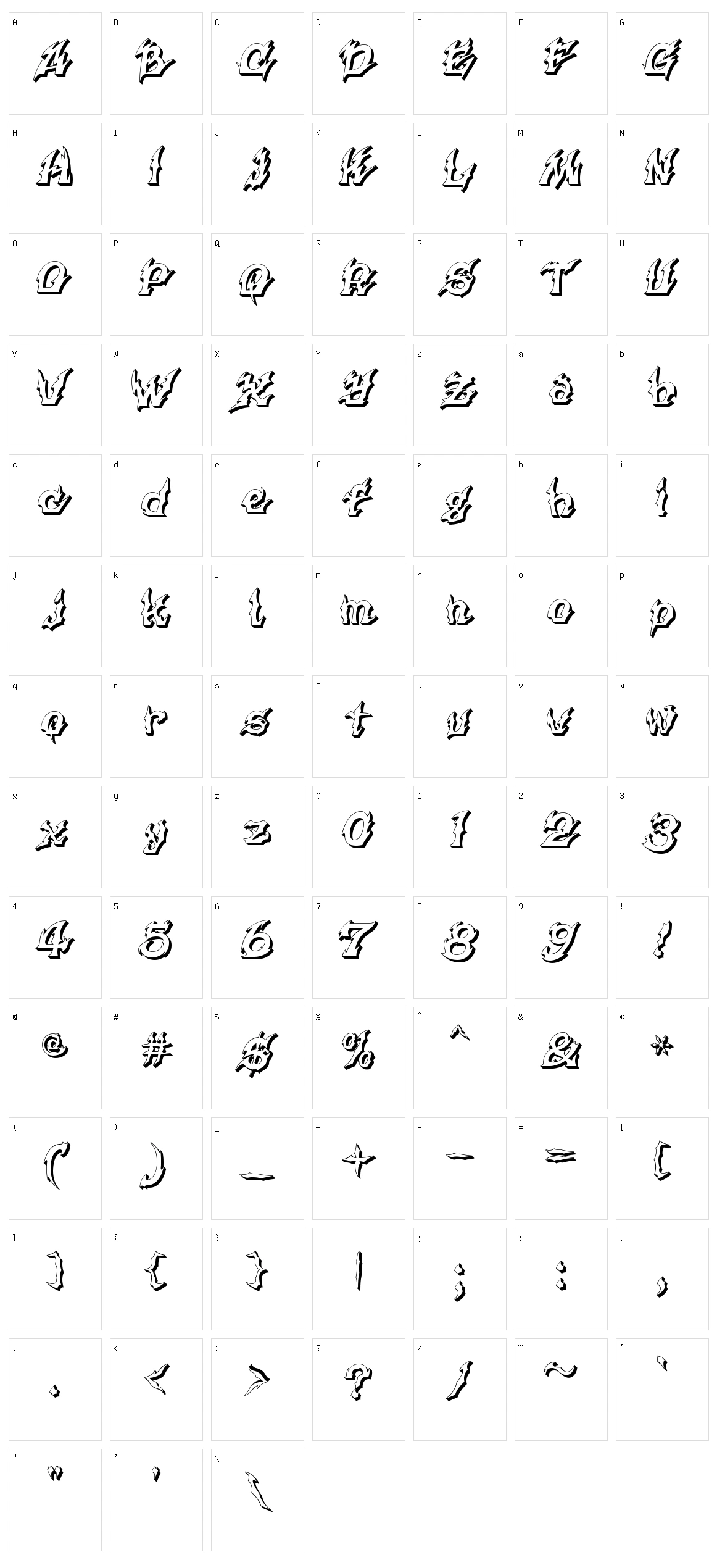
Xanax
Designed by: Apostrophic Labs
Category: Various & Gothic
... meanwhile, back at the lab, Apostrophe crawls under a desk and thinks to himself: "I am in ancient Rome and a lion is about to sink his teeth in my flesh. I smile at him to show him that I have teeth too, then I take out the mace can from my pocket and empty it in his left eye. He freaks and starts sounding like a cat in labour. I grab the lion's tail and drag him into a cage, lock the cage with the supergum that I was chewing all along. Then I return to the middle of the coliseum, the absolute middle, and stand on the circle where so much blood was shed before this day, The Day of the Apostrophe, the day which would be envied by every torreador for thousands of annums to come. I look up and and smile at the crowd, specifically at the scantily clad females behind Cesar. The sun gleams off one of my canines, which were earlier brushed extensively with salt and plasma, and a sharp-ended cross forms for a fraction of the a second where the sun just hit. The scantily clad females in the top row notice the fleeting cross and shiver."
Then Apostrophe crawls out from under the desk and goes to the modern day coliseum. He wants to humiliate the lion and make the females shiver. He asks the bartender for some tall glass of ice tea. The fluorescent lights gleam off the cold glass and many fleeting crosses form around the rim. The band starts playing.
You make me shiver.